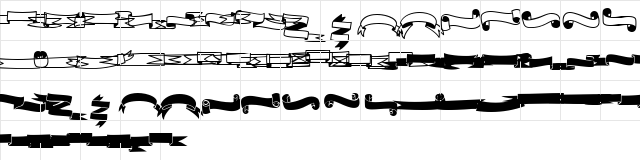
MF 26 Banners Regular
Design Context for MF 26 Banners Typeface
MF 26 Banners is a composed and adaptable typeface that performs quietly and consistently across a wide range of design contexts.